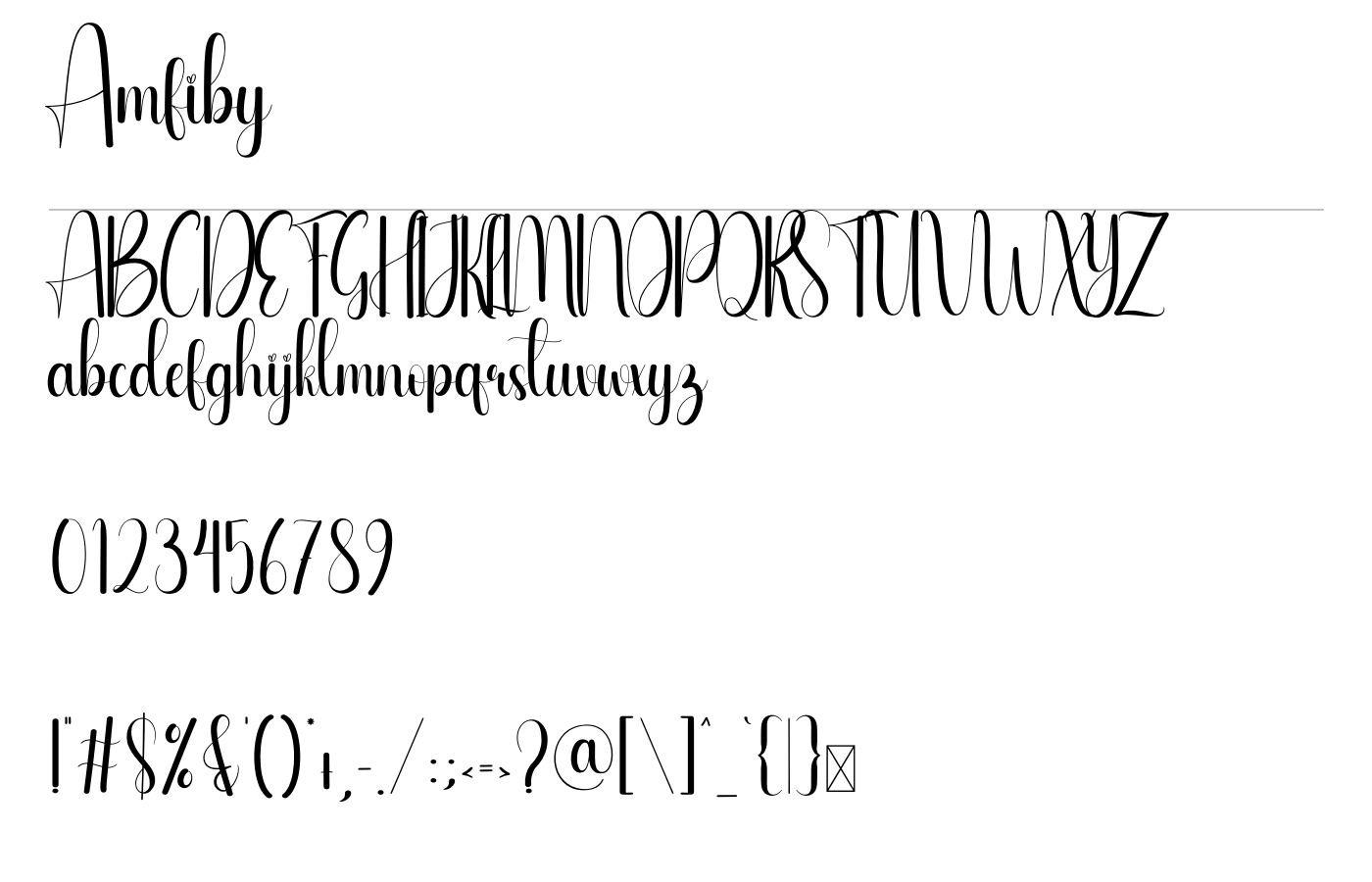
Amfiby is a delicate, handwritten script font with a tall, narrow build and elegant thin strokes that convey a graceful, whimsical charm. Its narrow letterforms and distinctive flourishes make it perfect for feminine branding, invitations, or editorial headlines where a touch of sophistication and personality is desired. This font works best in decorative, light-use contexts where its refined and artistic style can truly shine.
Amfiby Font
About Amfiby Font